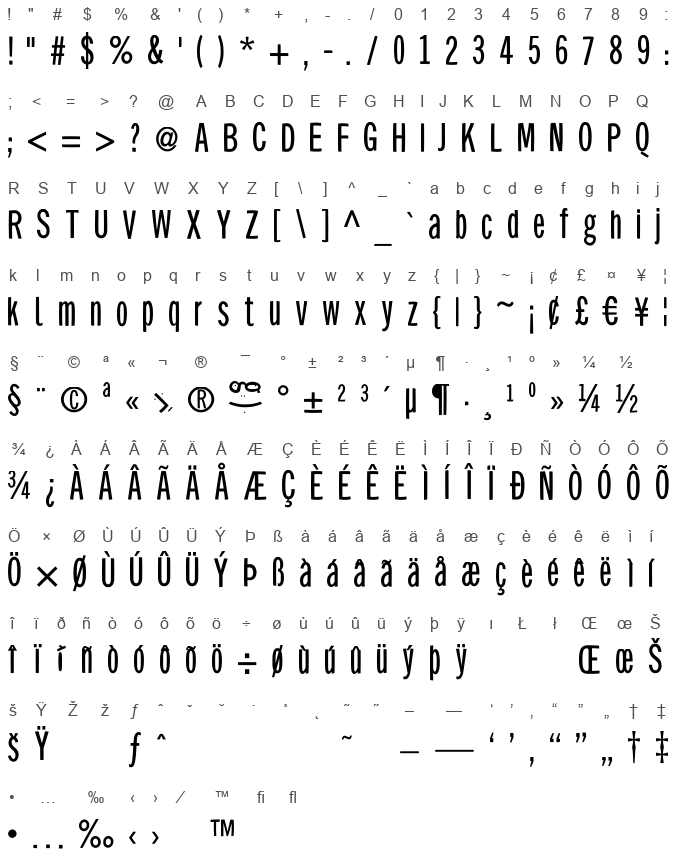
BellySansCondensed by Manfred Klein embodies a unique blend of simplicity and expressiveness, crafted to deliver a modern, sleek aesthetic while retaining a sense of warmth and approachability. At its core, the font showcases the characteristics of a sans-serif typeface, emphasizing clarity and readability which makes it a versatile choice for both digital screens and print media.
The condensed nature of BellySansCondensed means that it is particularly well-suited for spaces where economy of space is crucial, without sacrificing legibility. This aspect is a testament to Klein's skilled design, enabling text to maintain its impact even when used in more confined spaces, such as headlines, logos, and packaging.
Manfred Klein's work on this font also reflects a subtle playfulness beneath its surface simplicity. While it maintains a professional demeanor necessary for diverse applications, from corporate branding to editorial design, there are nuanced design choices that give BellySansCondensed a distinct personality. This might be seen in the slightly rounded terminals or subtle variations in stroke width, which add a human touch to its appearance.
Overall, BellySansCondensed is a testament to Manfred Klein's ability to balance form and function within the realm of type design. It manages to be at once straightforward and nuanced, making it a reliably stylish choice for designers seeking to convey modernity and efficiency without losing a touch of individuality.
BellySansCondensed